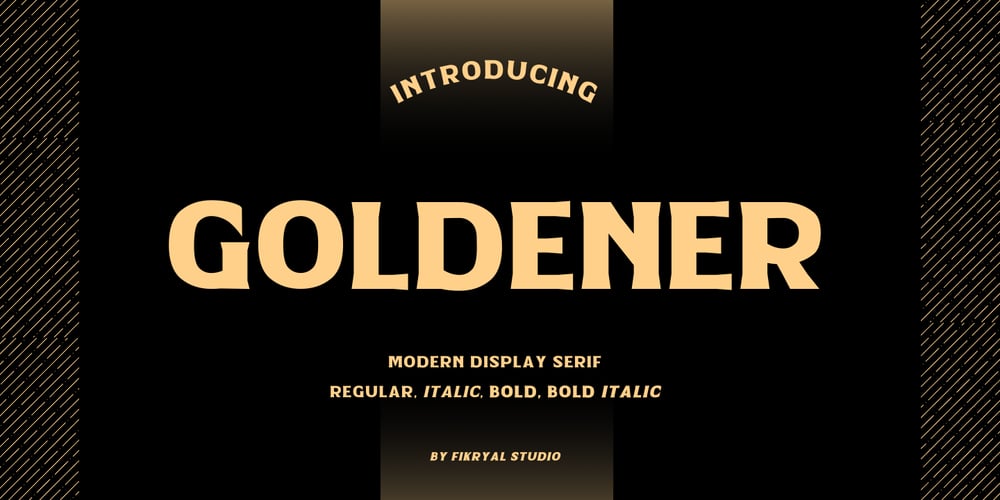
Goldener
Goldener font
Goldener Font Family was designed by Muhammad Fikry and published by Fikryal. Goldener contains 4 styles and family package options. Introducing Goldener, a sophisticated all-caps modern display serif font perfect for your design needs.With its elegant lines and distinctive style, Goldener adds a touch of class to any project.This versatile font family includes four stunning variations: Regular, Italic, Bold, and Bold Italic, allowing you to create eye-catching headlines, logos, and branding materials with ease.Elevate your designs with Goldener’s timeless elegance and modern flair.If you have any questions please don’t hesitate to contact mefollow my Instagram: fkryallThank you